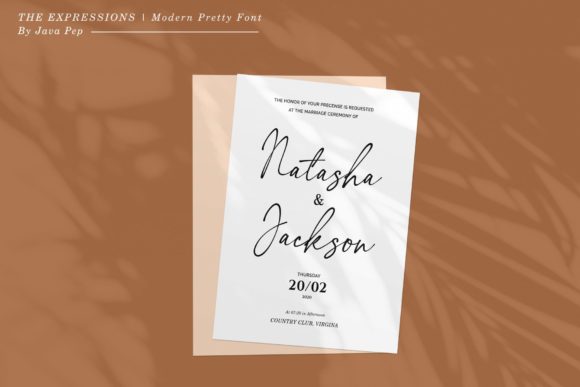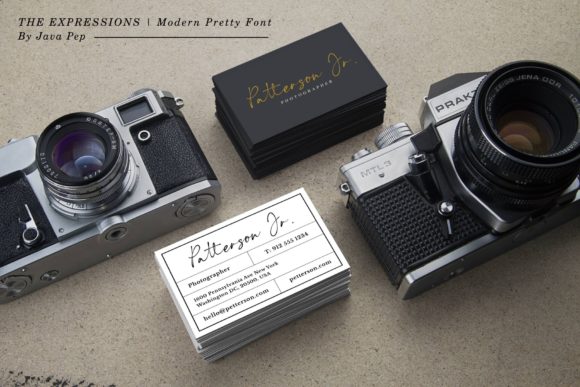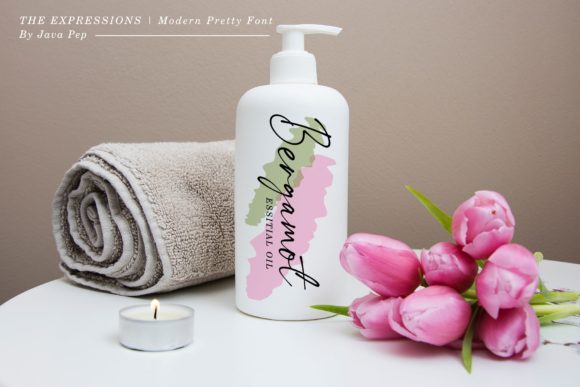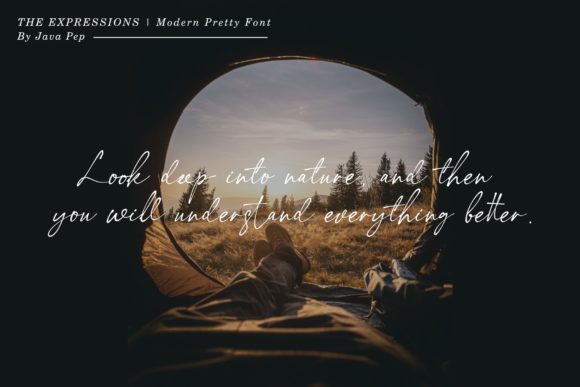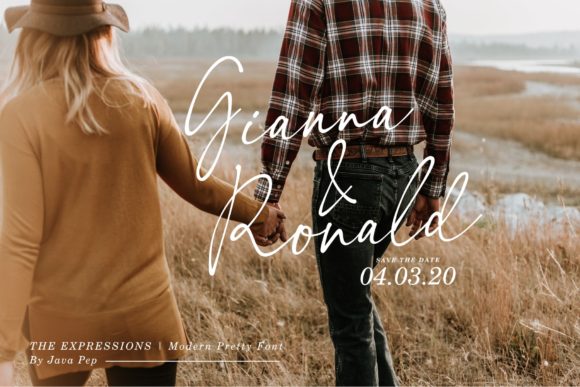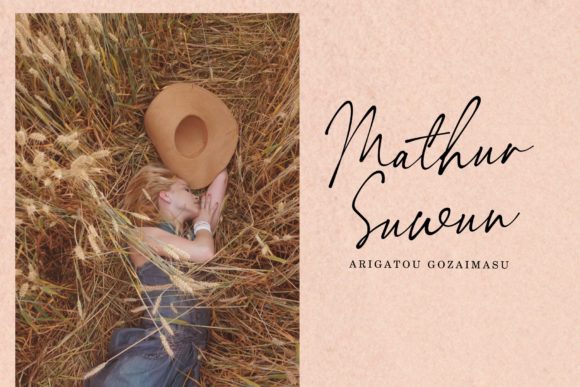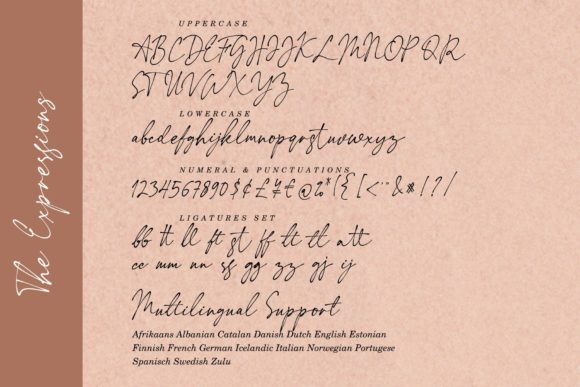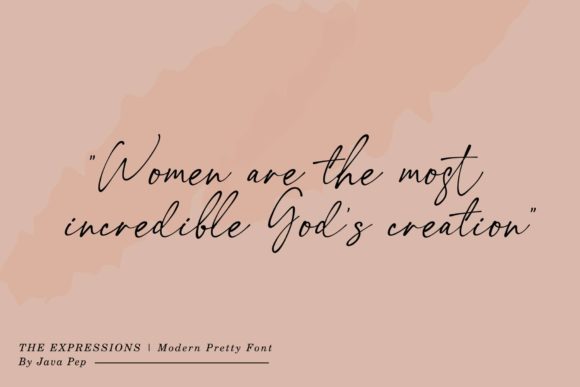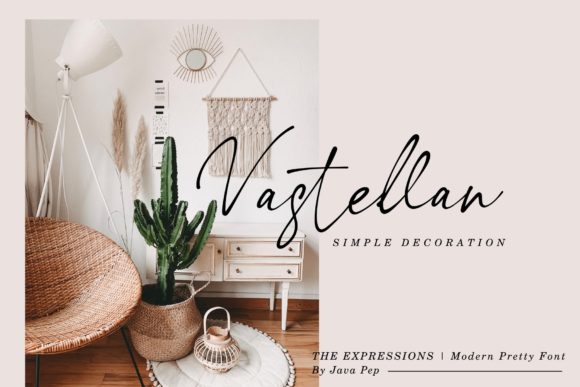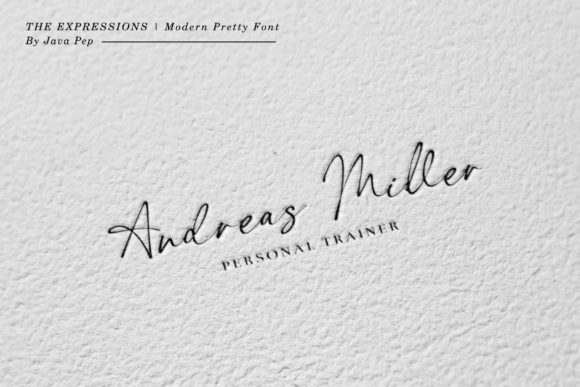
The Expressions Font
About The Expressions Font
The Expressions is a gorgeous calligraphic script that will make your designs stand out. Fall in love with this fancy handwritten font!